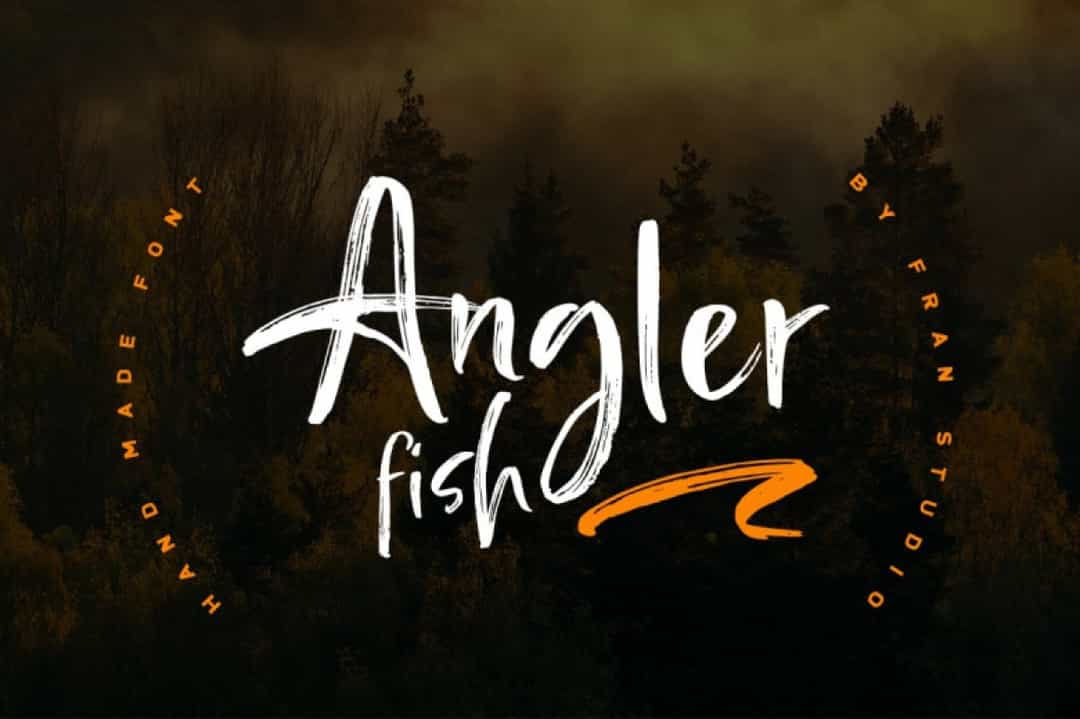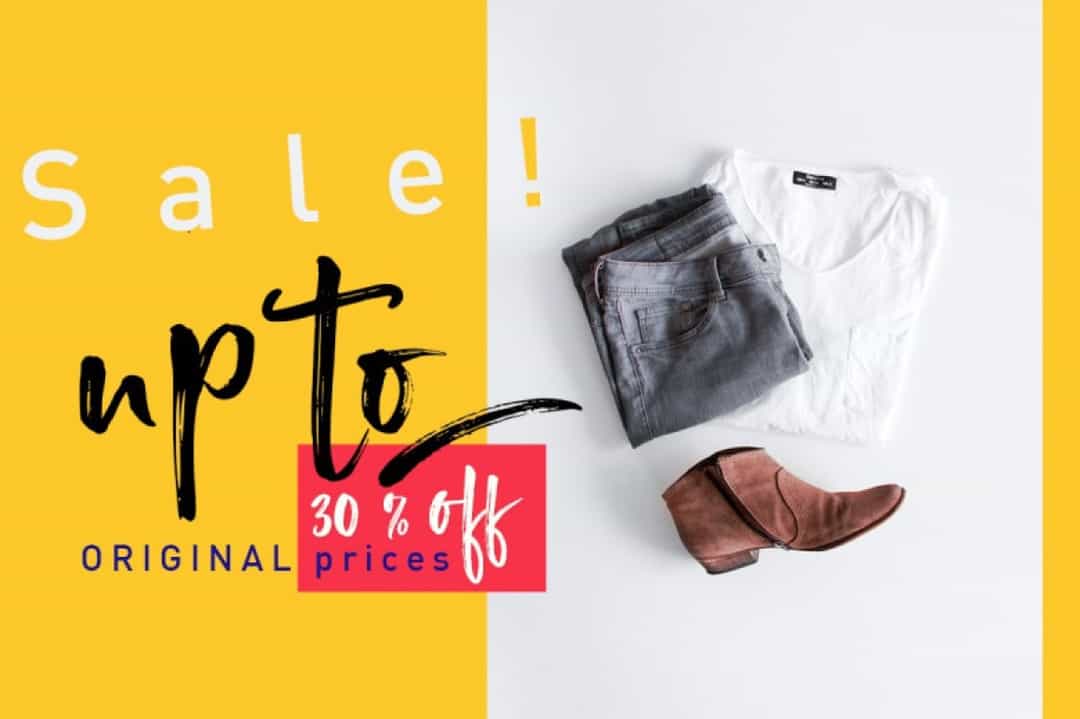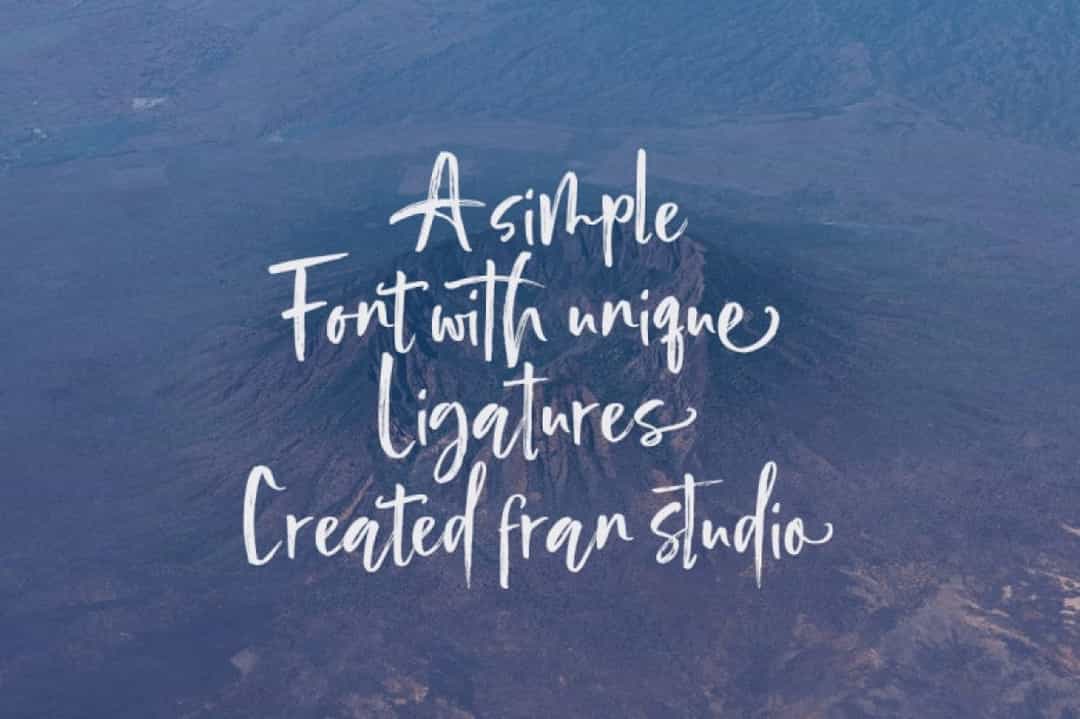
Discover Angler Fish Font, part of the Brush collection—a versatile and unique font perfect for adding a personal touch to your projects. Download it for free and enjoy crafting designs with style, from invitations to social media posts. This font is available exclusively for personal use, giving you the freedom to create without limits. Unlock your creativity with Angler Fish Font today!
Angler Fish is an exquisite handmade brushscript font that features an eye-catching yet classic design, perfect for all of your projects. Fall in love with its distinctive yet timeless aesthetic and use it to craft beautiful designs!